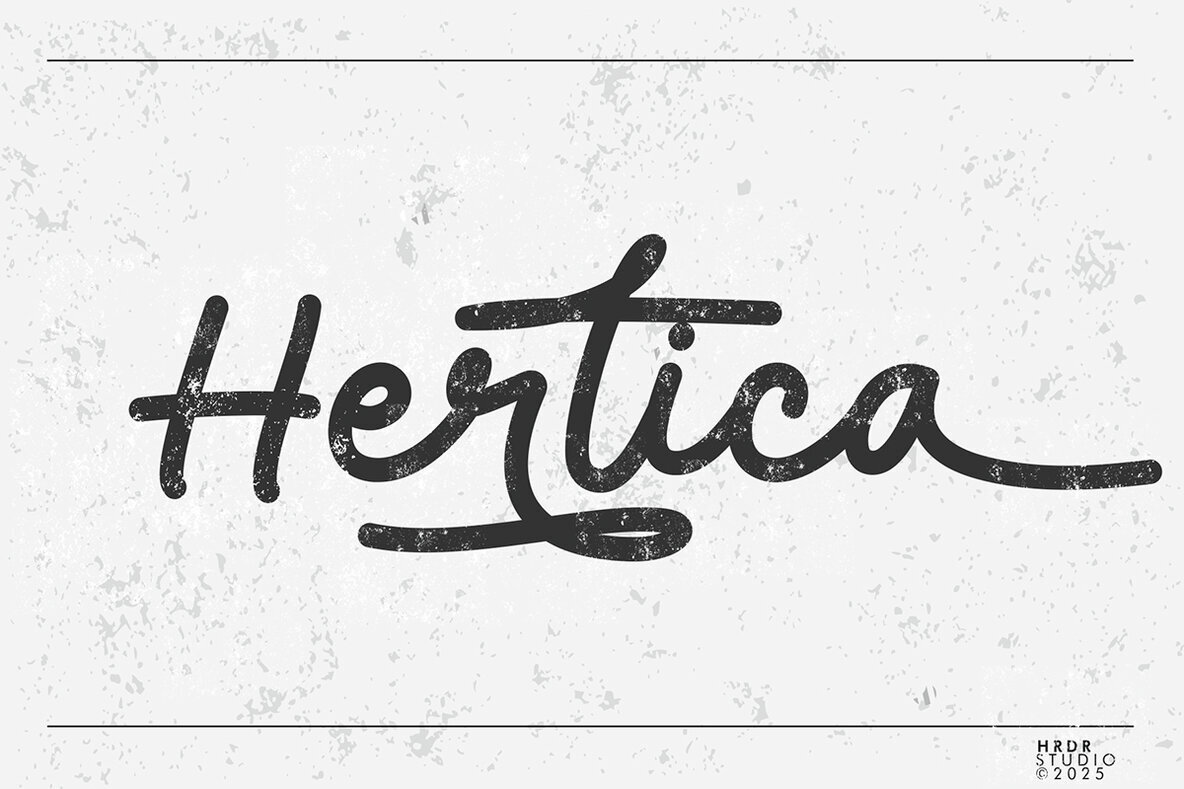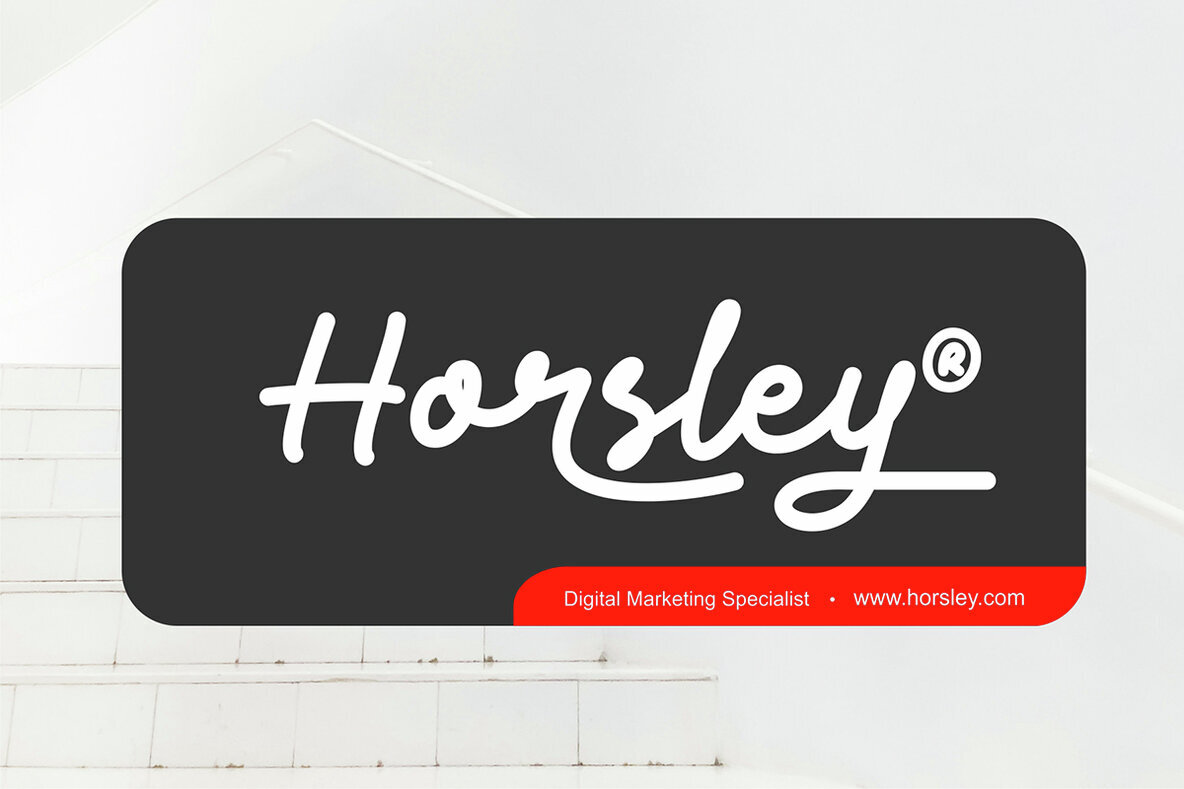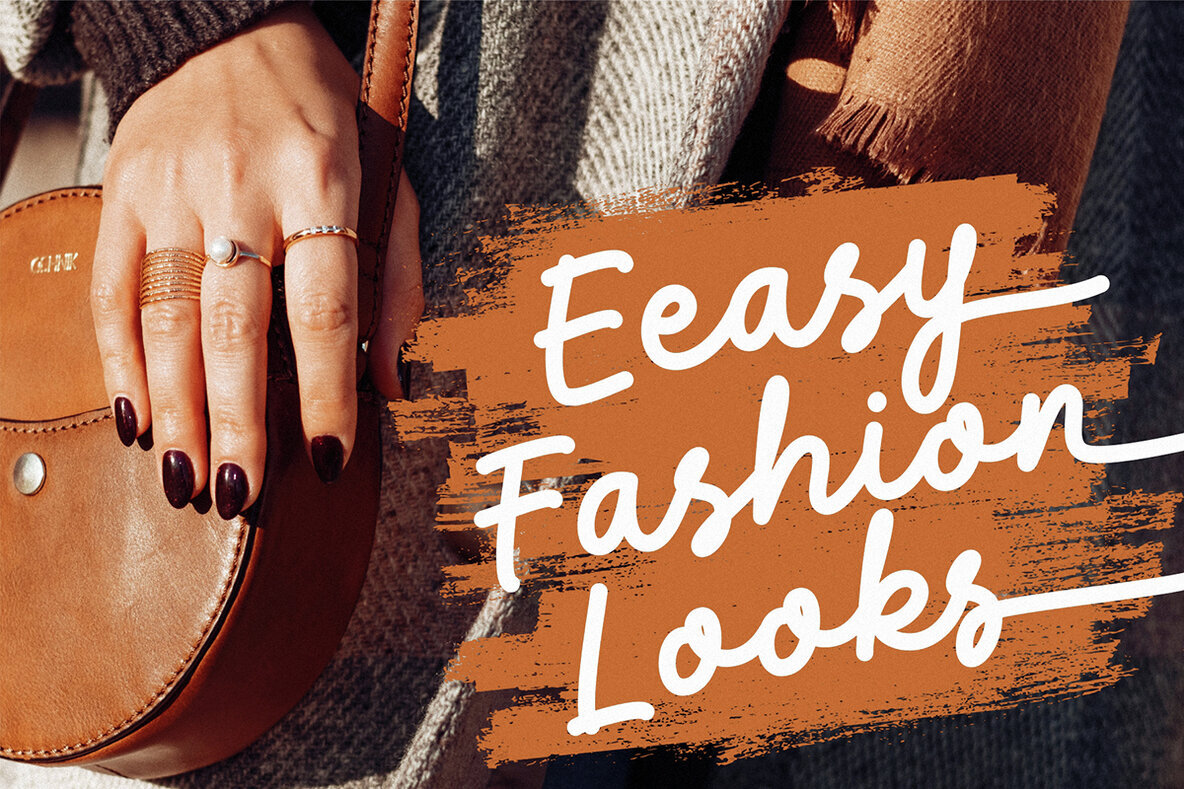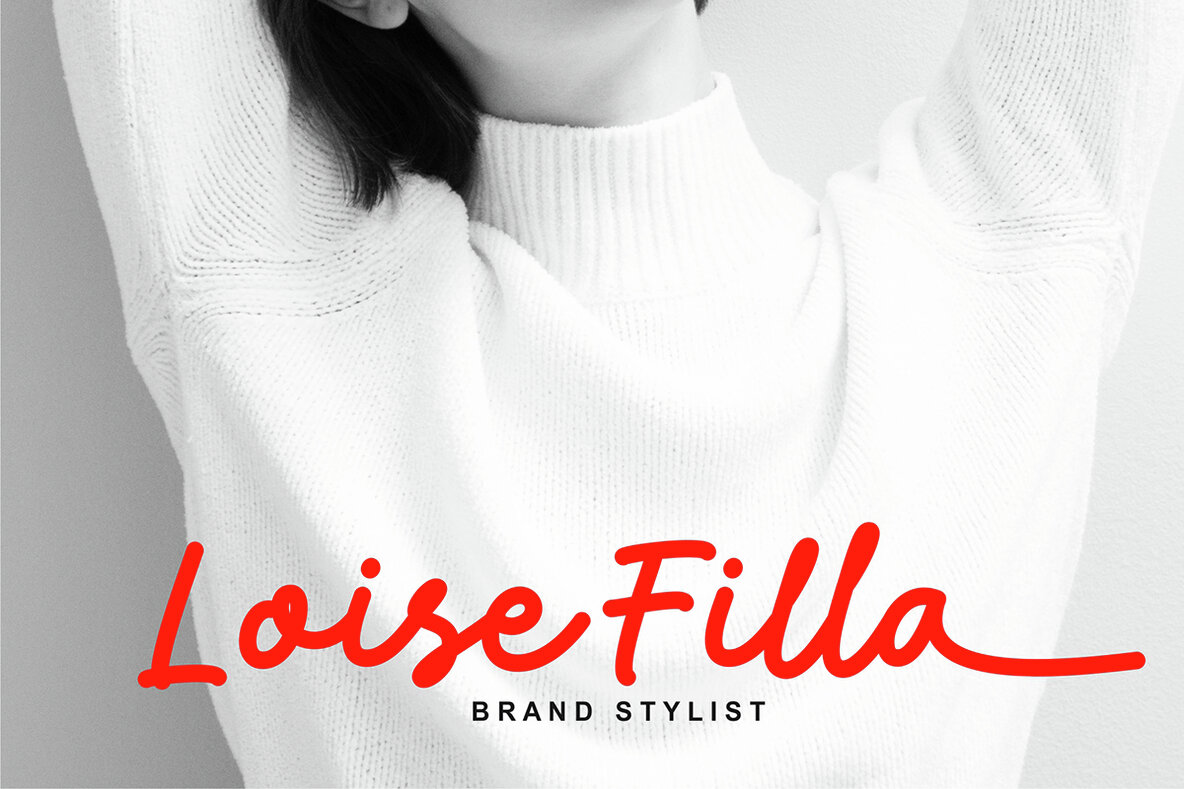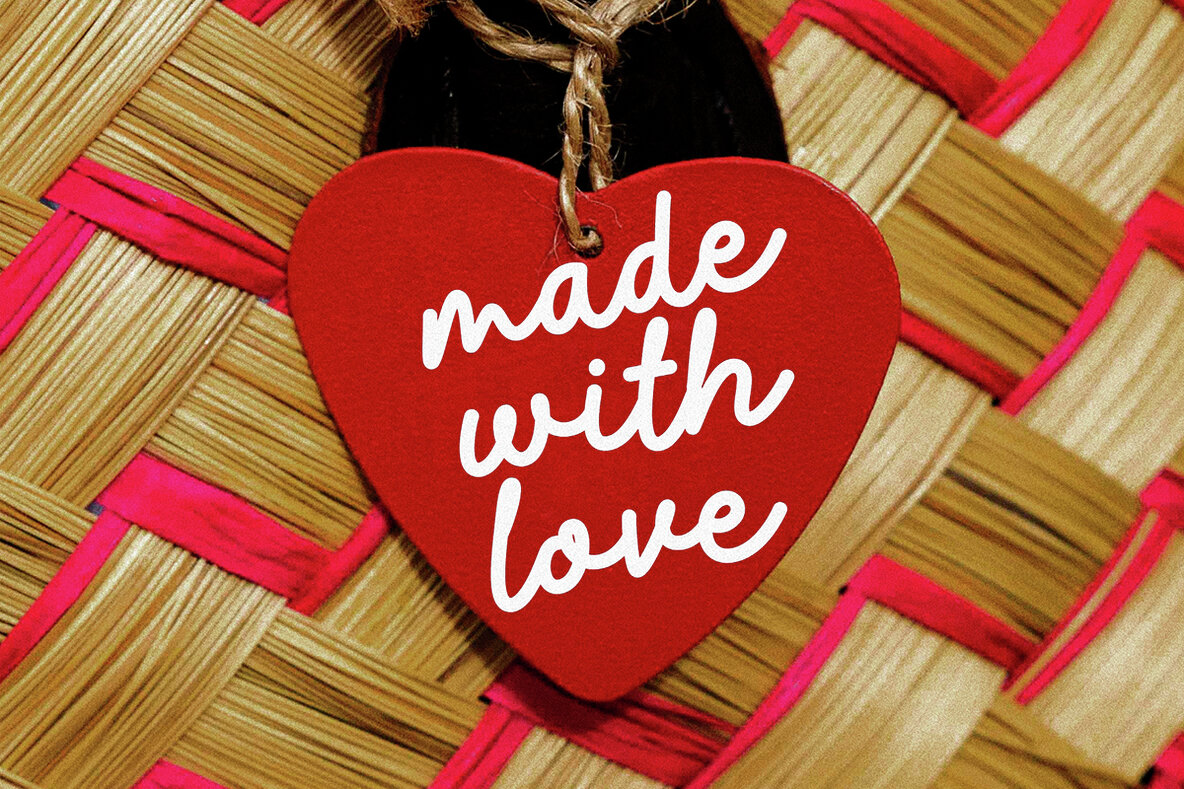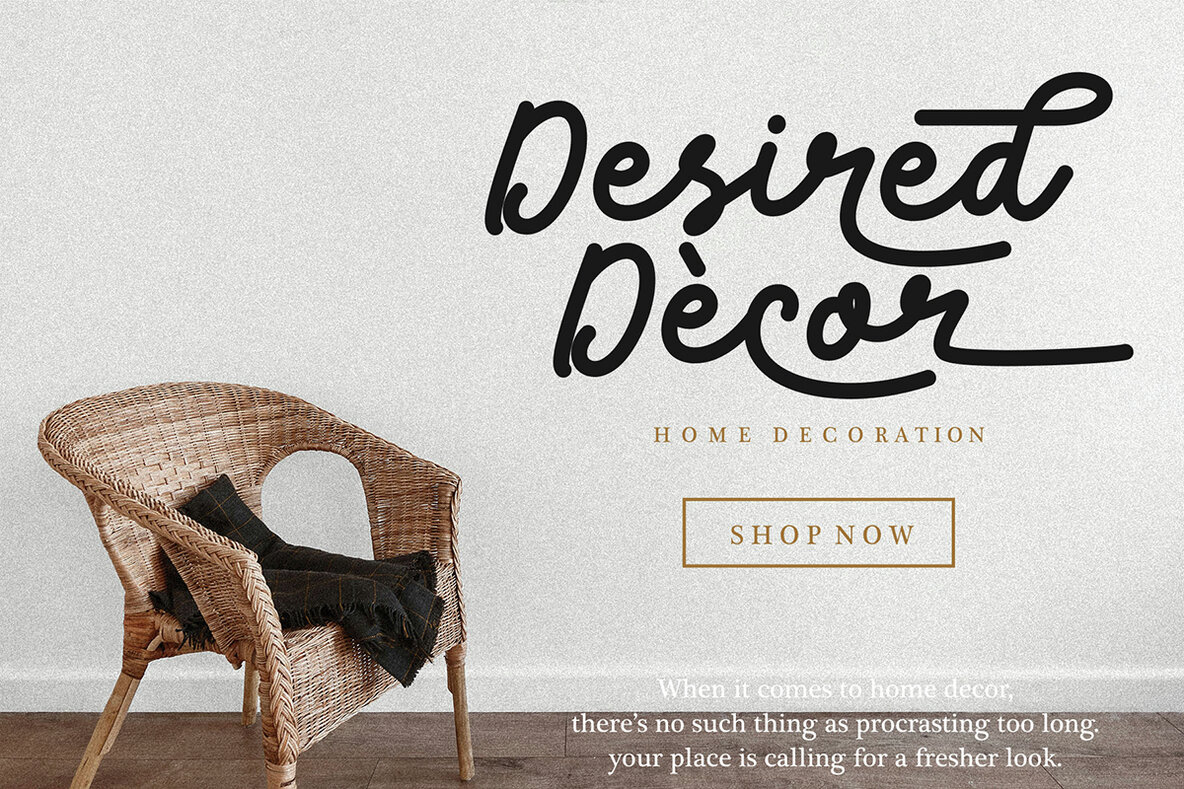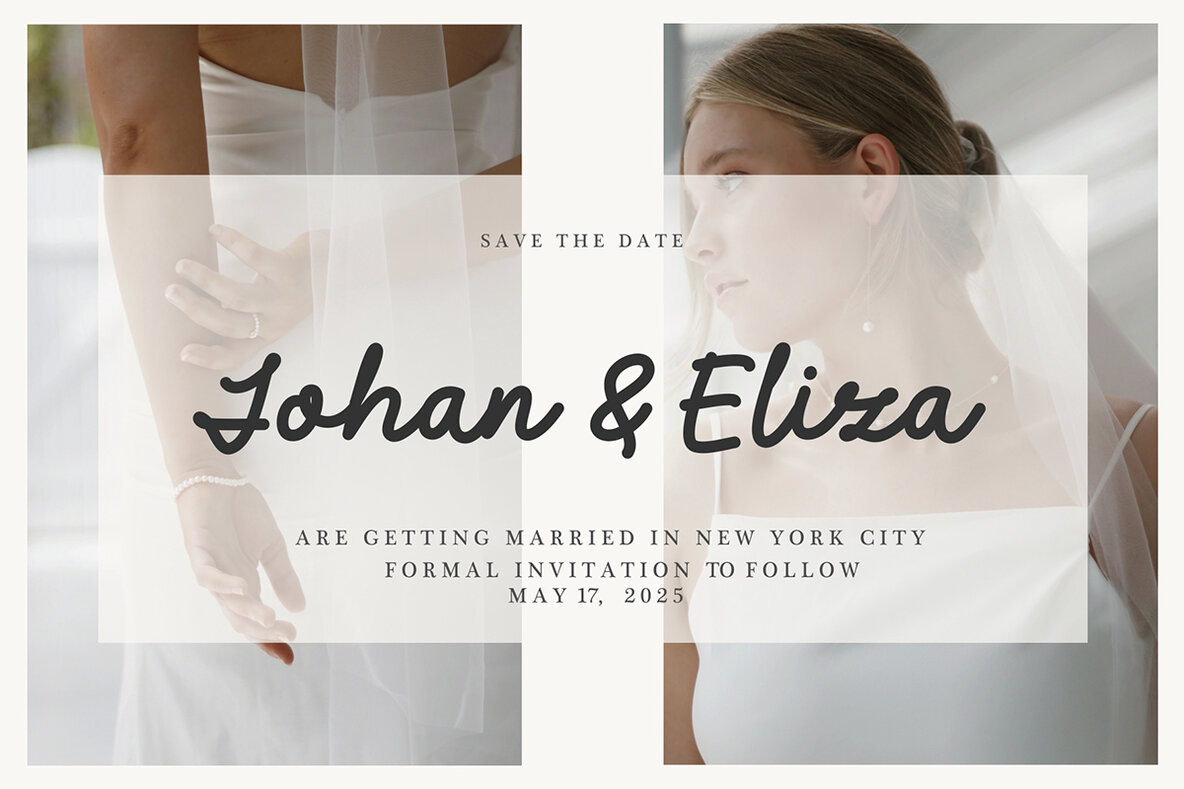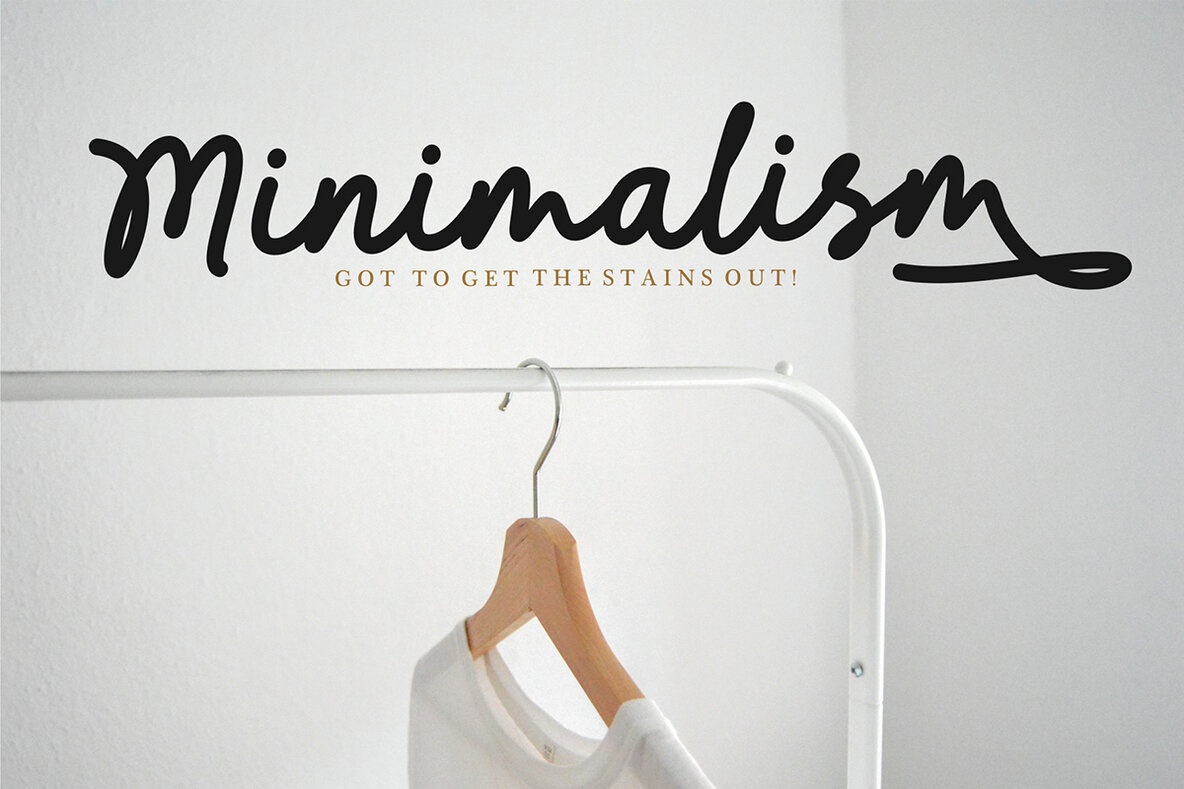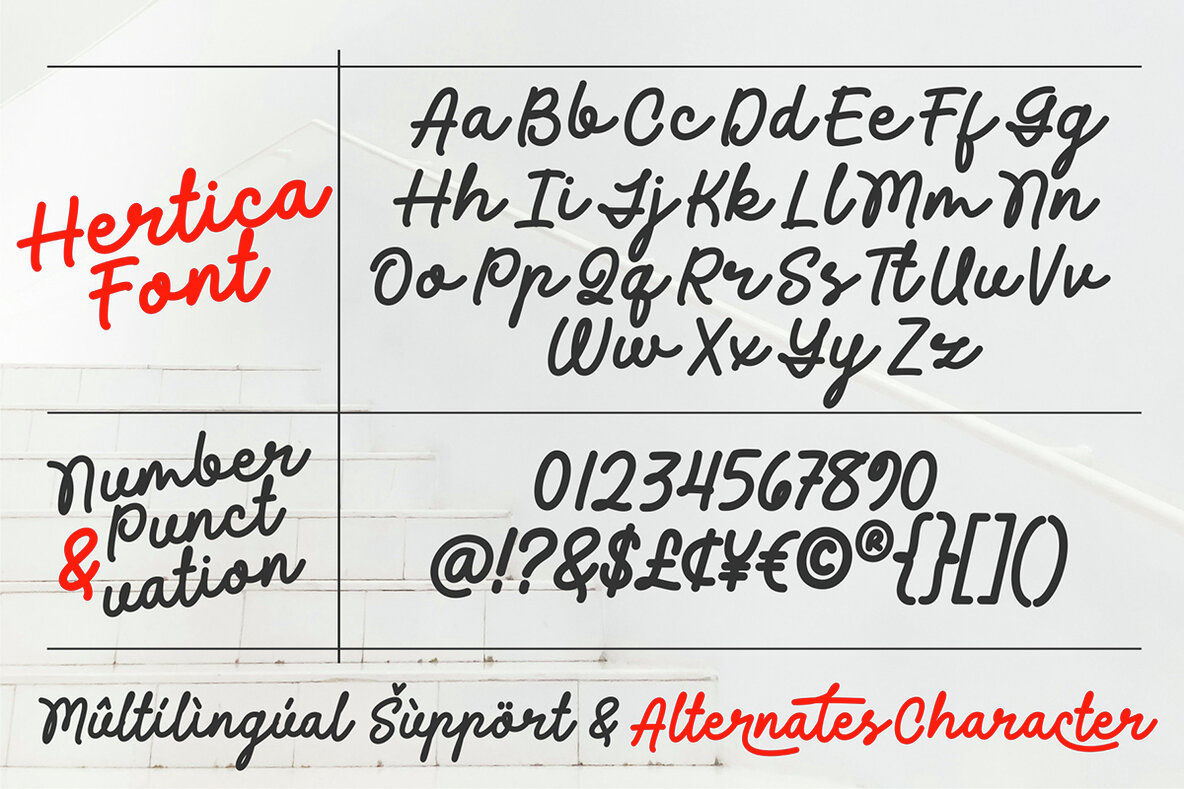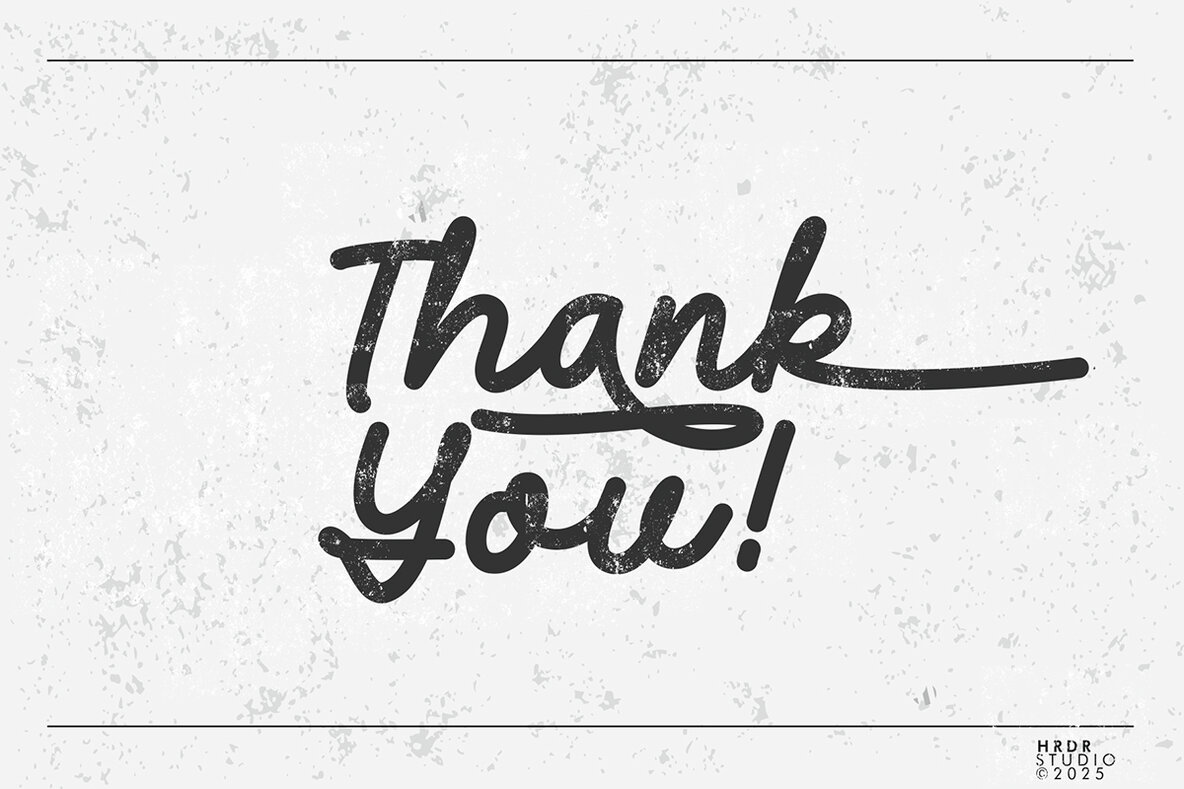
Hertica Font
Hertica
Hertica is your new go-to modern monoline font, designed to add elegance to a wide array of creative projects. Whether it’s crafting stunning branding materials, designing invitations, or creating eye-catching social media posts, Hertica fits perfectly into every design scenario. Ideal for logos, advertisements, product packaging, labels, posters, photography, and special events, this font is versatile and sophisticated. Hertica also offers PUA encoded files, ensuring compatibility with software that lacks OpenType feature support, like Silhouette and Inkscape. Elevate your designs with the sleek and contemporary style of Hertica.Introducing Hertica